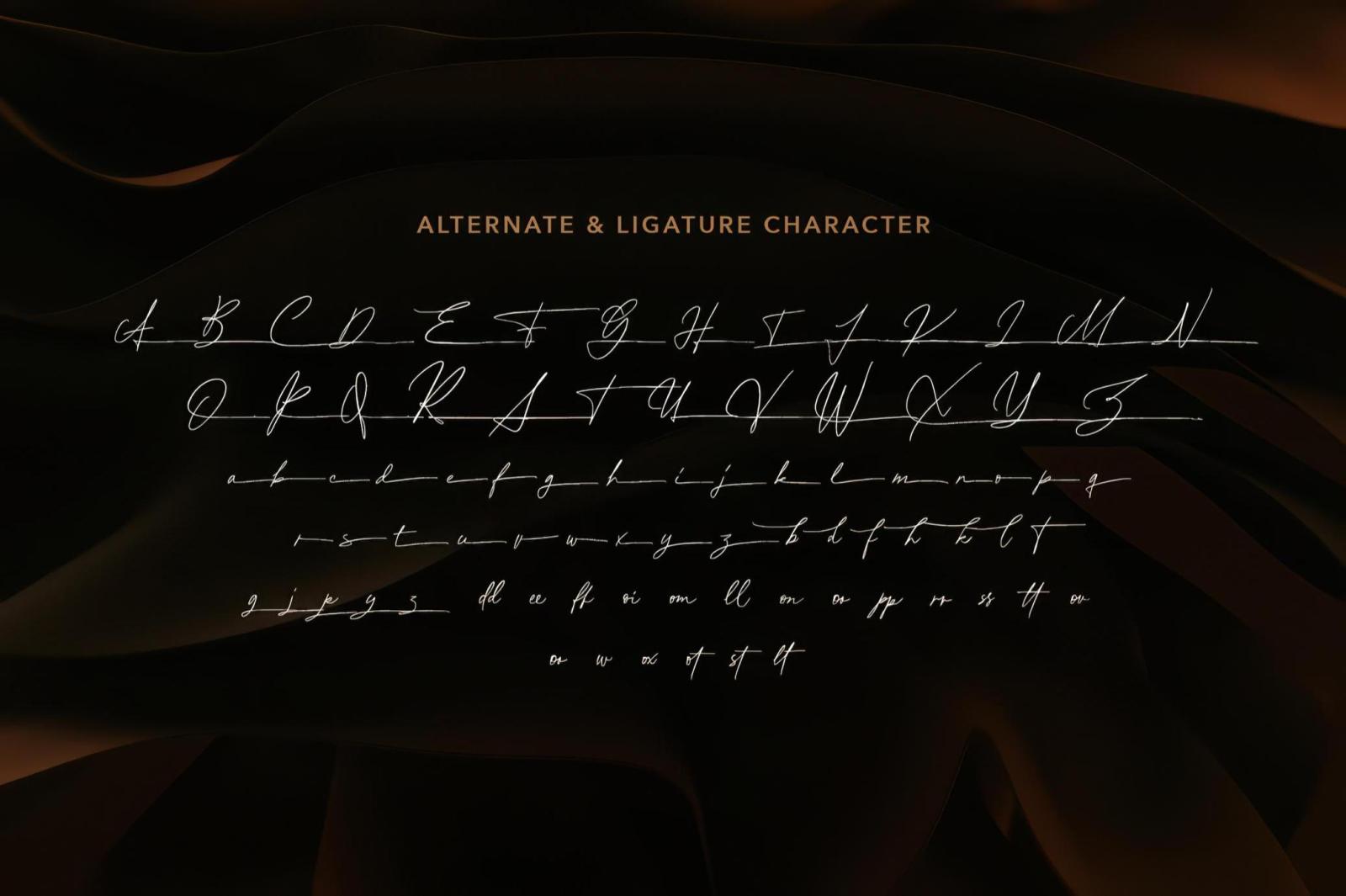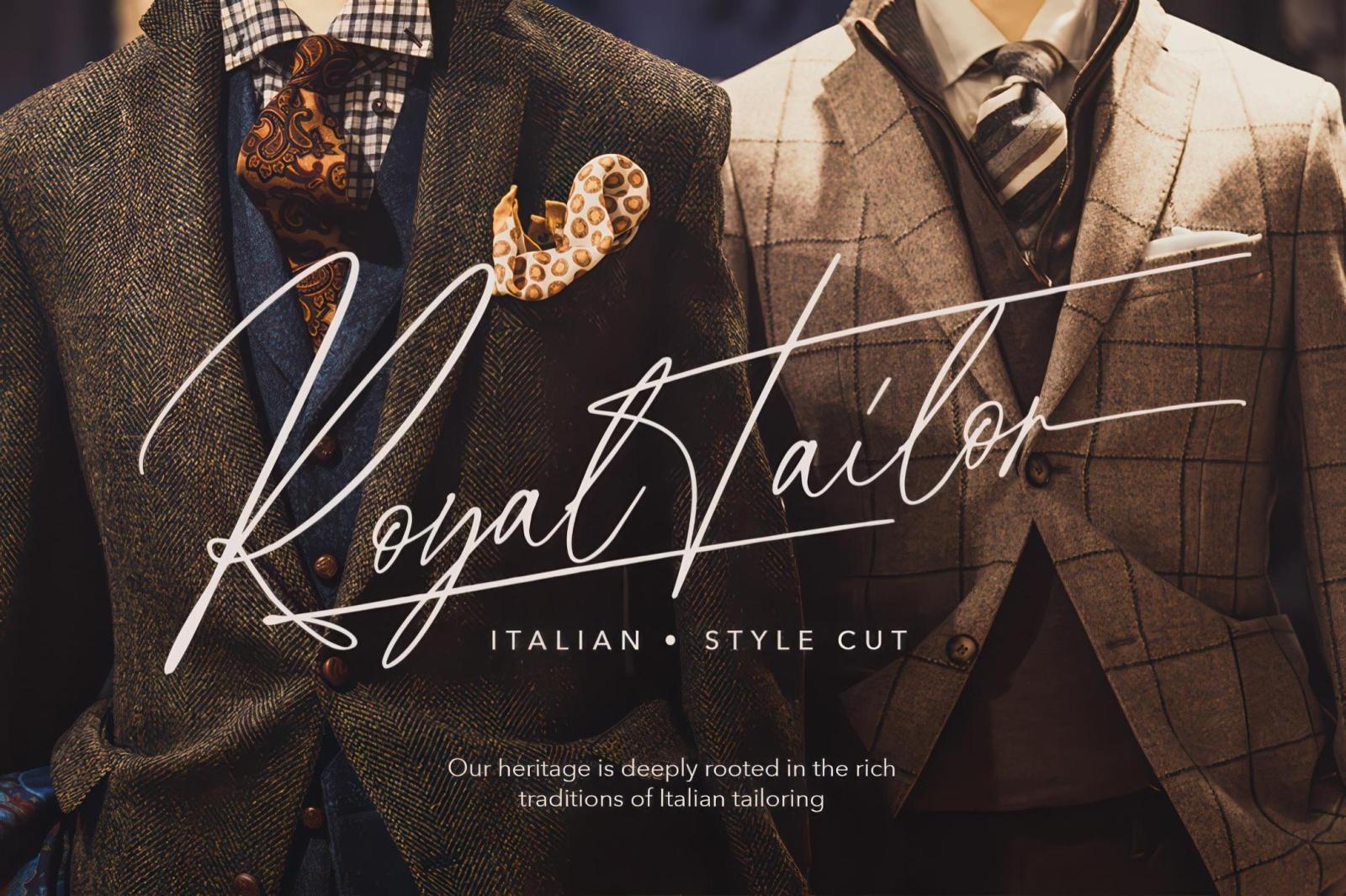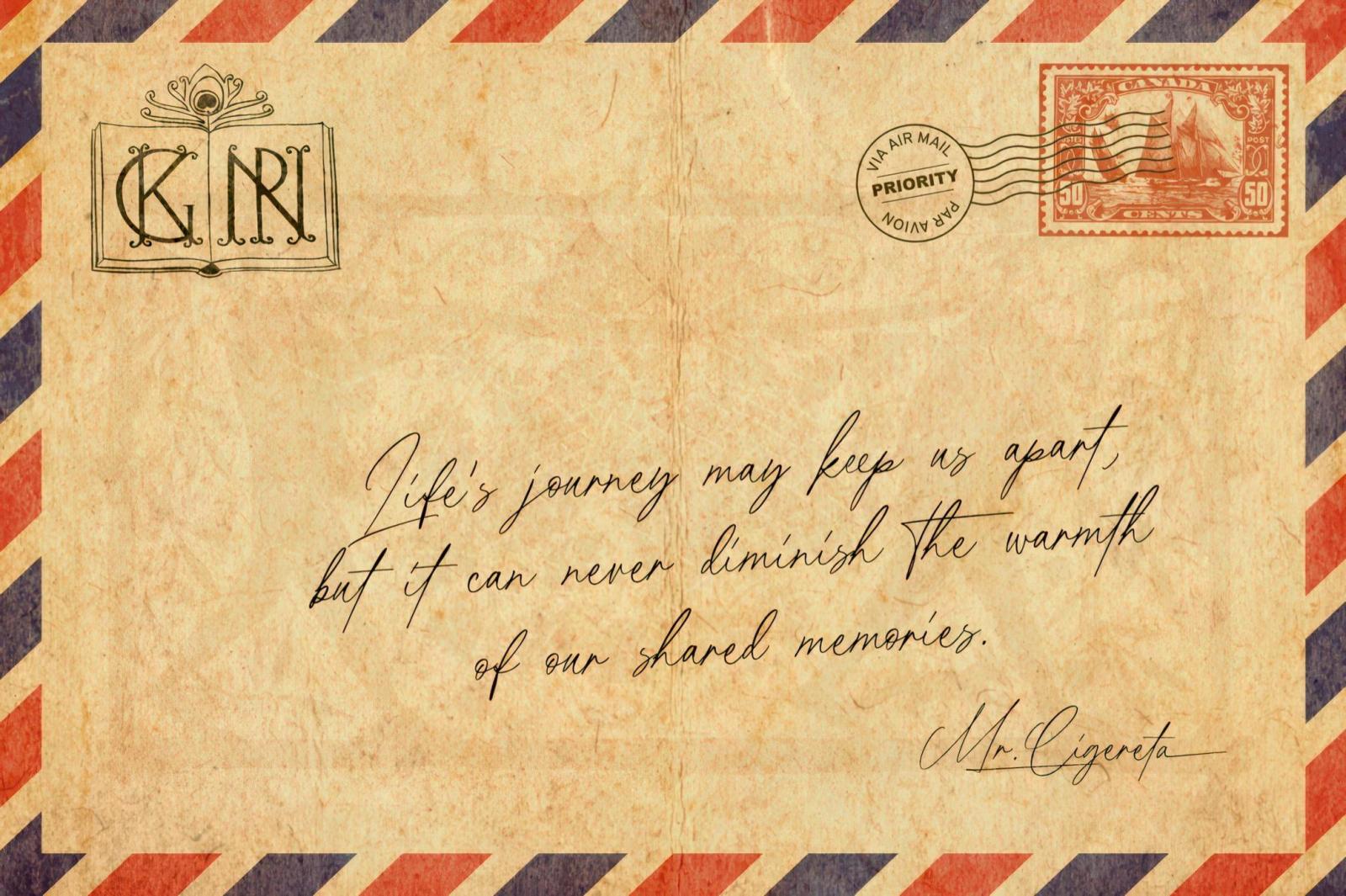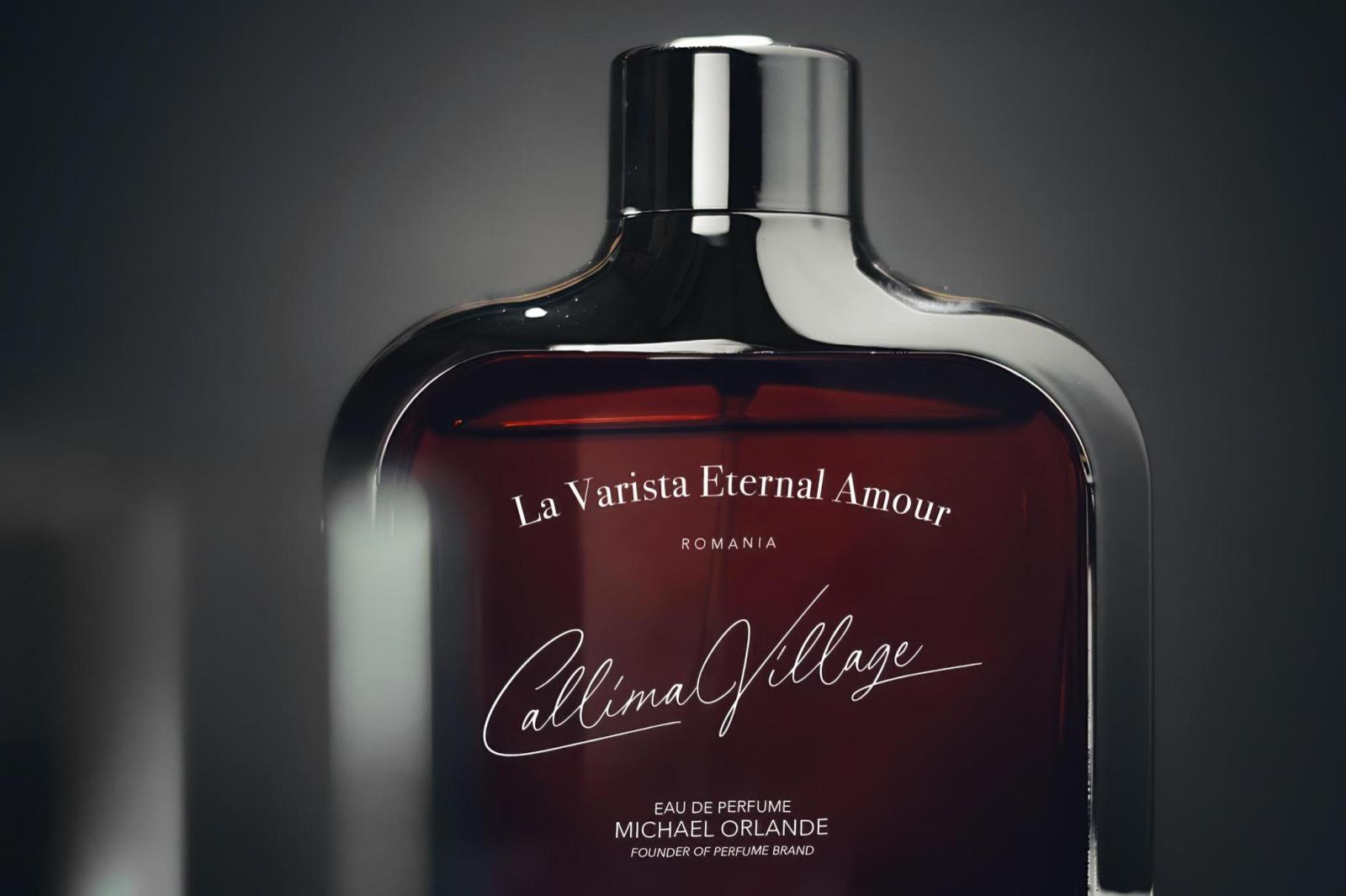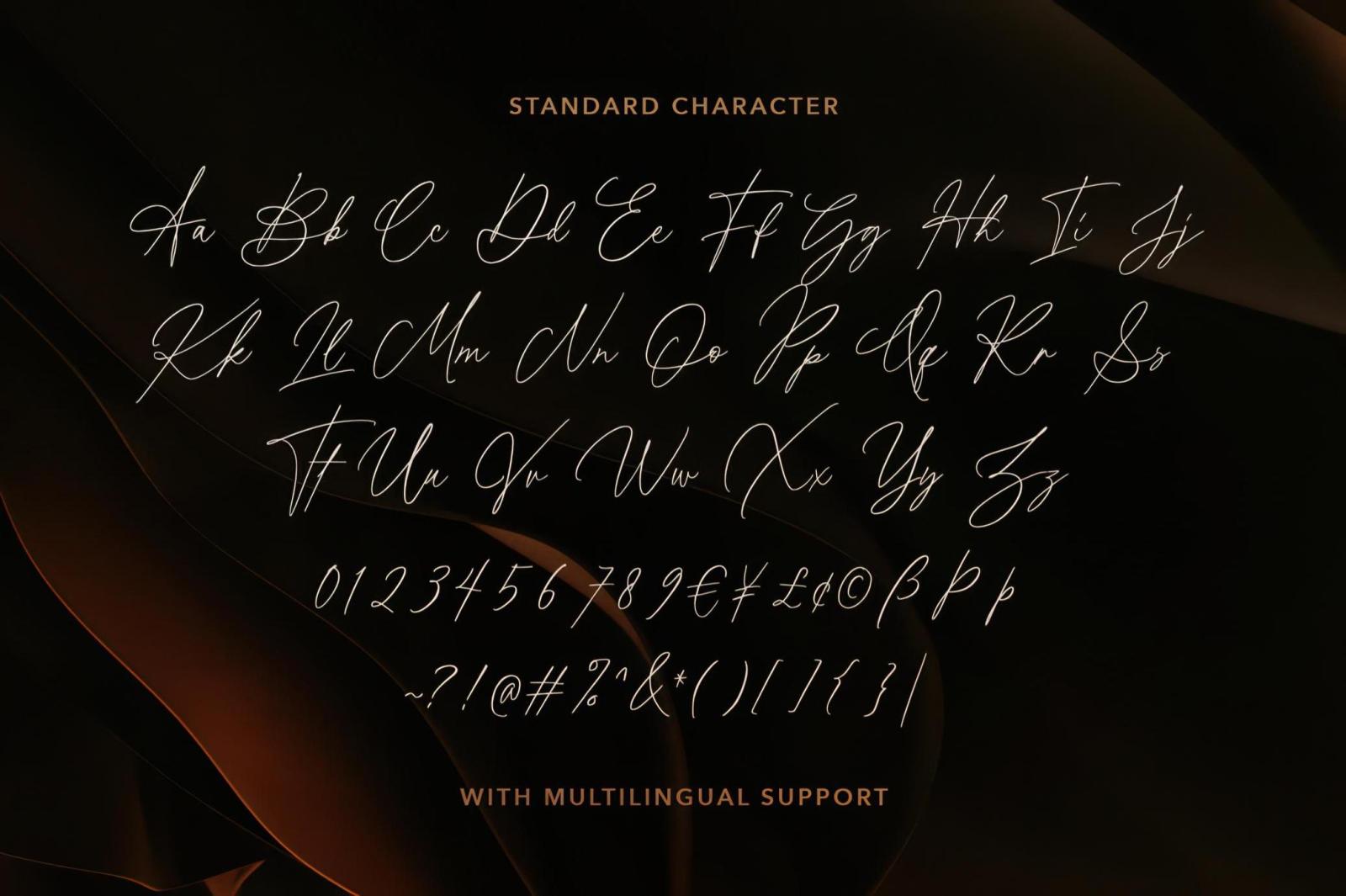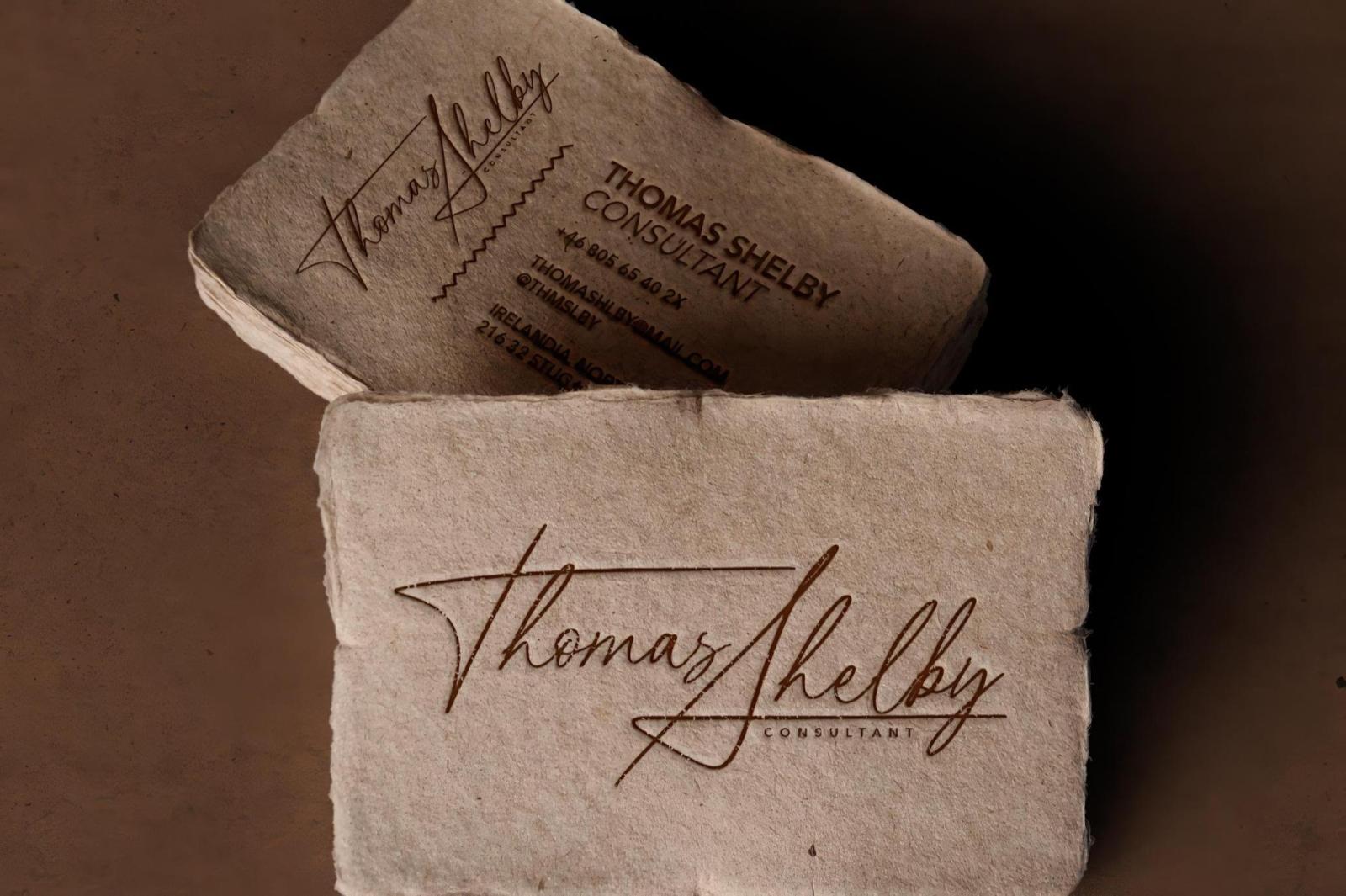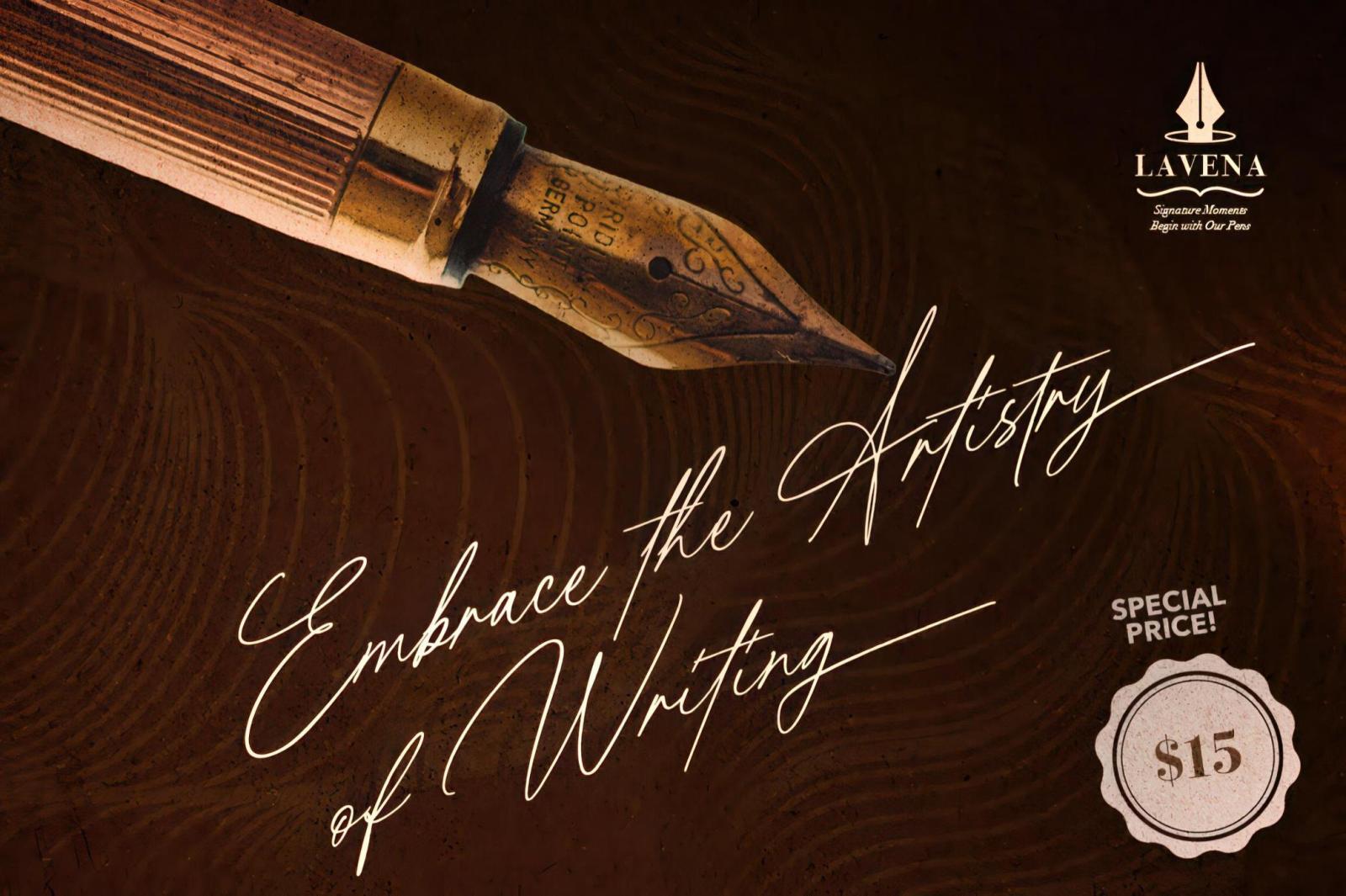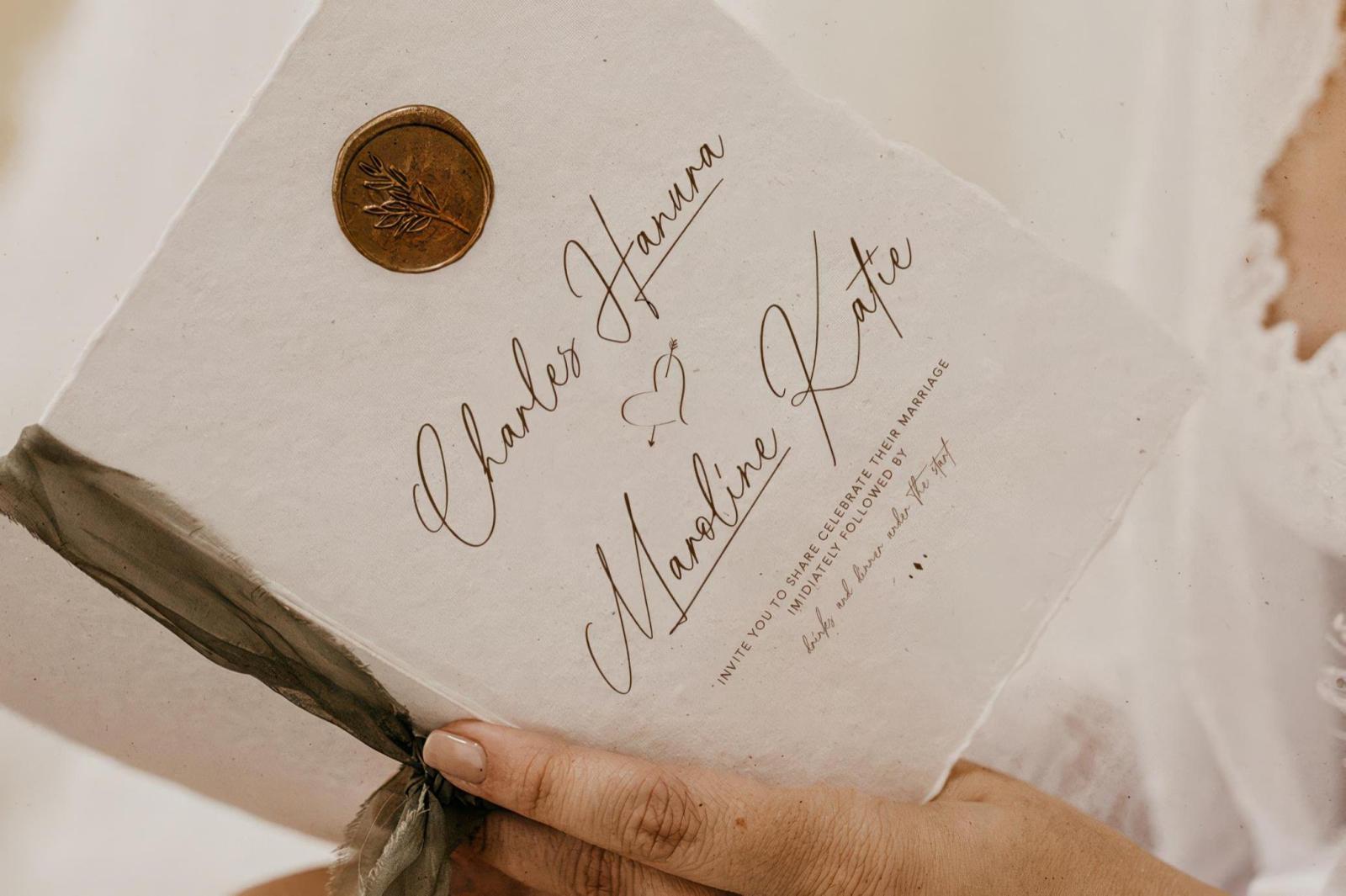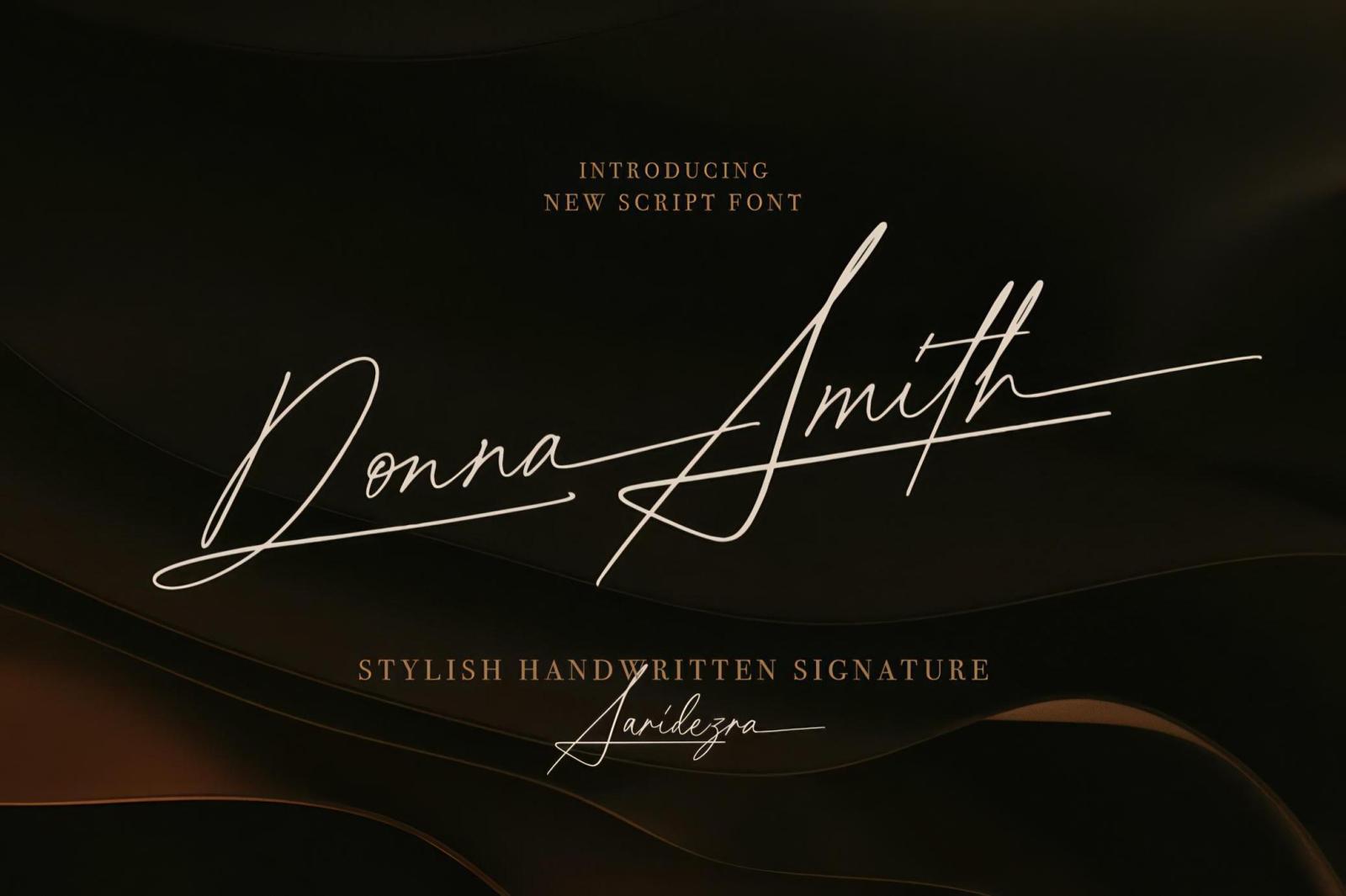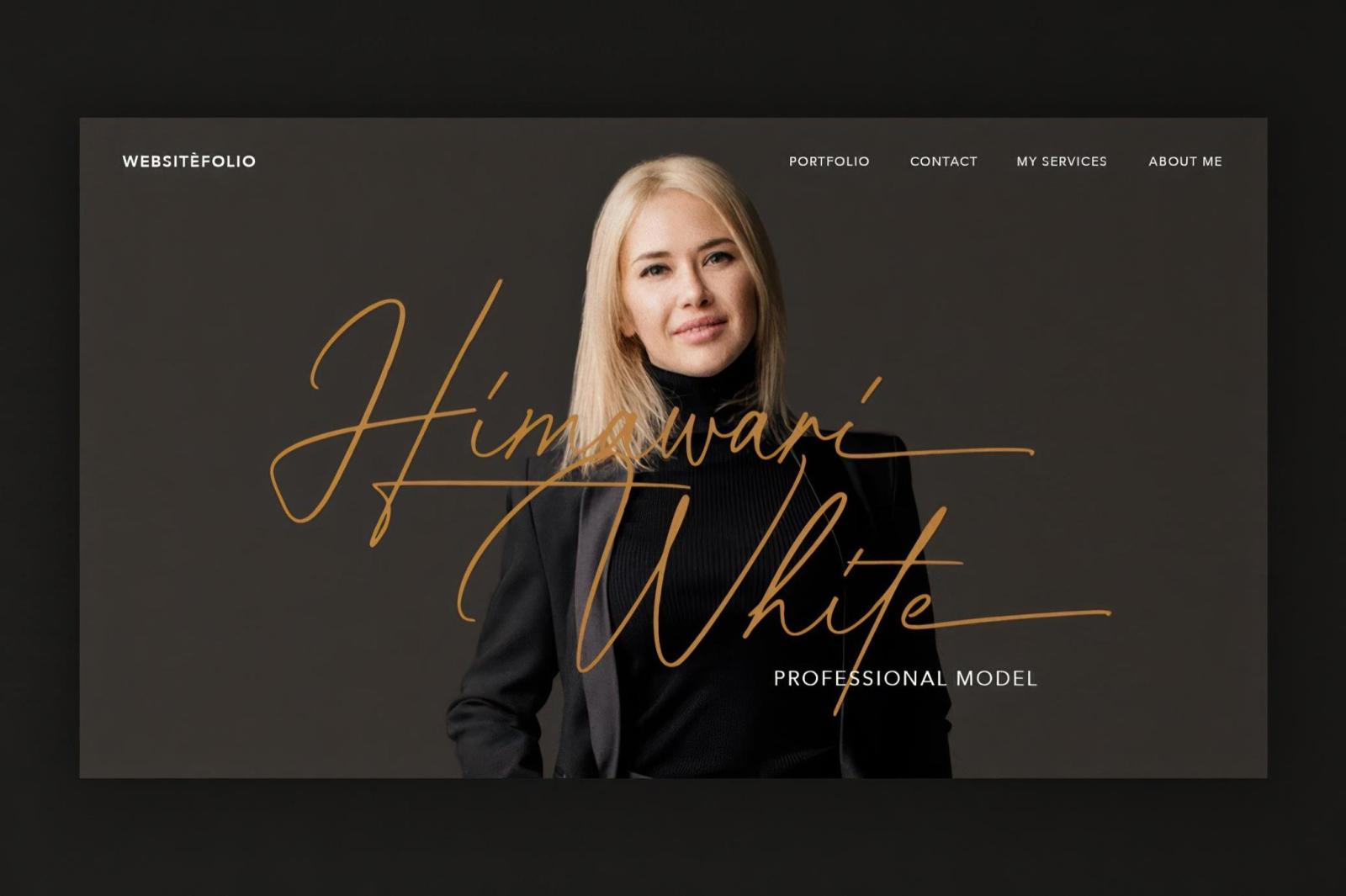
Donna Smith — Stylish Signature Font
Donna Smith is a handwritten gem that captures grace and charm in every letter. This signature font softly blends artistry with a personal touch, making it a go-to choice for projects that call for understated elegance. Its fluid strokes and delicate curves will suit beauty product packaging, wedding invitations, fashion lookbooks, or logo and branding concepts. Donna Smith features a complete set of uppercase and lowercase letters, numerals, punctuation, and multilingual support for seamless typography. There are also uppercase alternates, so your designs exclude charm from the first word.